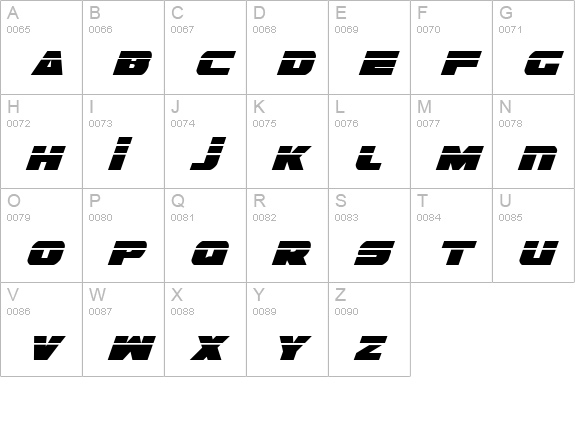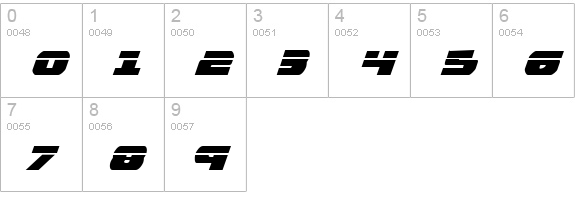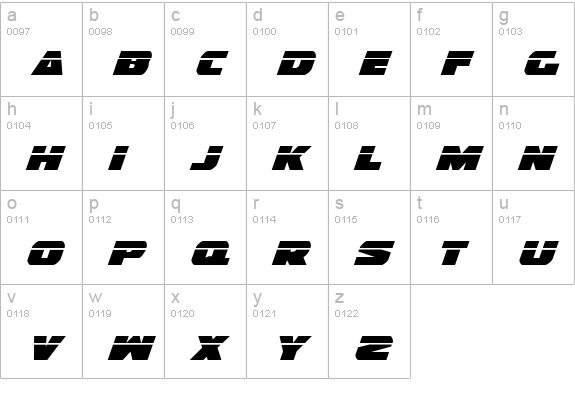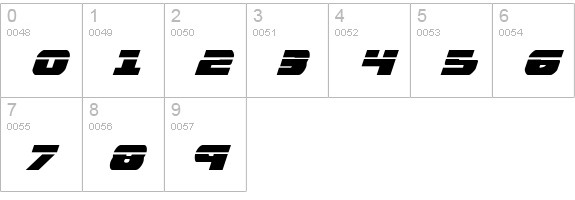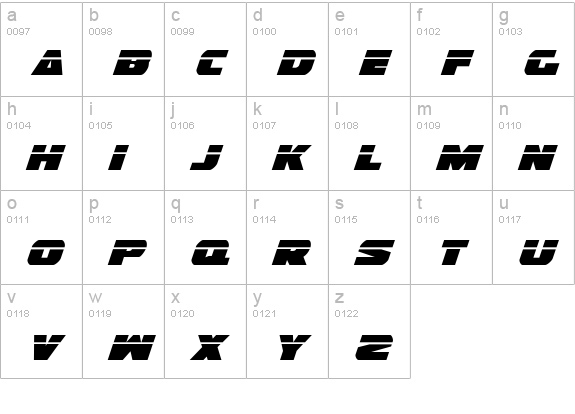
Guardian Laser Italic is a distinctive, italic variant in the Guardian typeface family \xE2\x80\x94 well suited to design and typography projects.
Guardian Laser Italic font is a sleek and modern typeface that exudes strength and sophistication. Its sharp, laser-like edges give it a futuristic look, making it perfect for projects that require a cutting-edge aesthetic. The italic style adds a touch of elegance and dynamism to any design, making text appear fluid and engaging. This font is a versatile choice for a wide range of projects, from branding and marketing materials to editorial design and web graphics. Its bold presence commands attention and makes a bold statement, while remaining effortlessly readable and eye-catching. Best of all, Guardian Laser Italic font is available for free download at FontsMarket.com, making it easily accessible for designers and creatives looking to add a contemporary twist to their work. Download this striking typeface today and elevate your designs with its powerful presence.